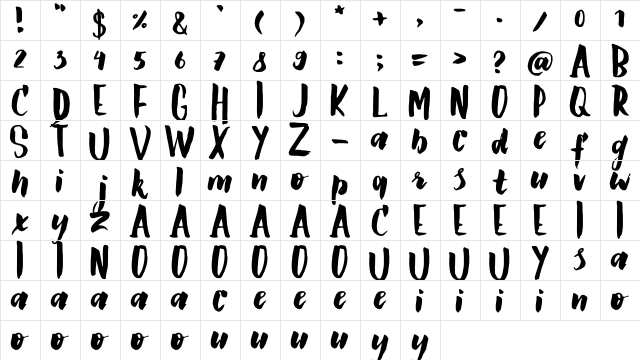
GS Claretta Brush Regular
Design Context for GS Claretta Brush Typeface
GS Claretta Brush brings a calligraphic fluidity to the page — its connecting strokes and expressive curves give it an unmistakably human quality.
Font Pairing: Combine GS Claretta Brush with a simple geometric sans for maximum contrast — the tension between flowing curves and clean structure is a classic typographic pairing.
Pro Tip: Pair GS Claretta Brush with a clean sans-serif for supporting text. The contrast between fluid script and geometric structure creates an elegant typographic hierarchy.